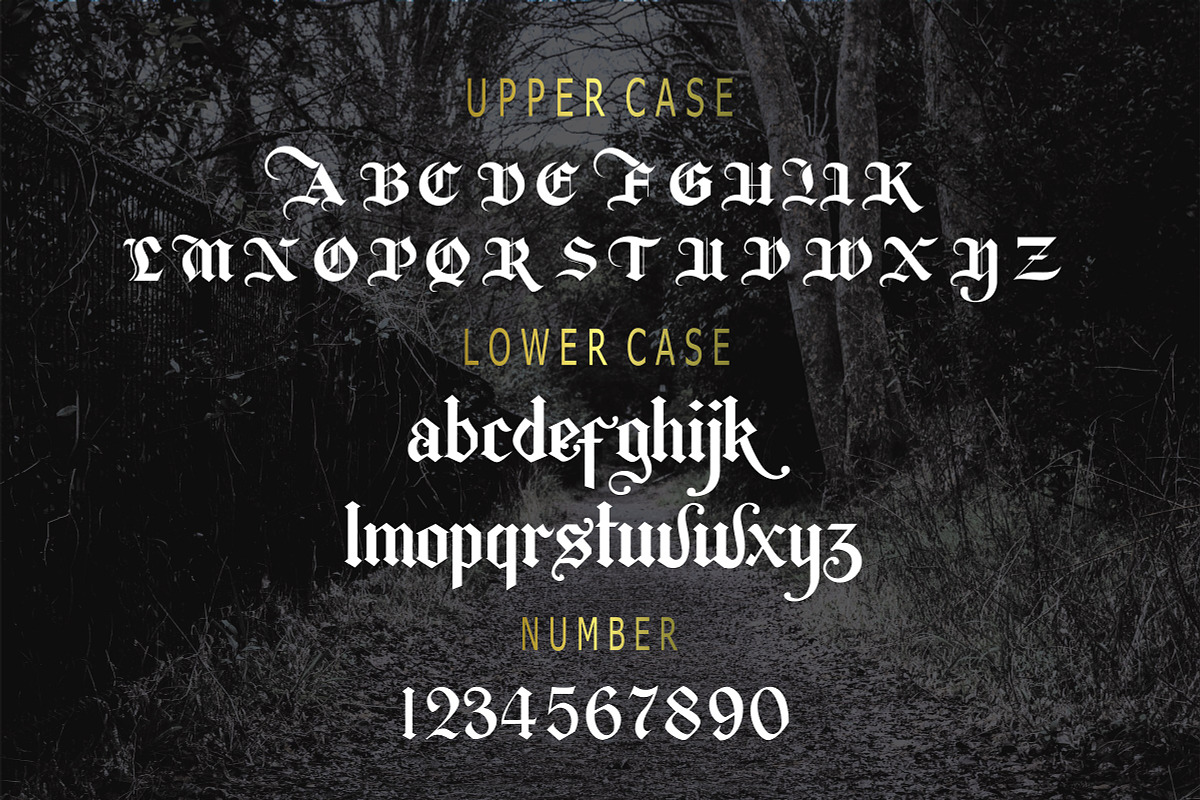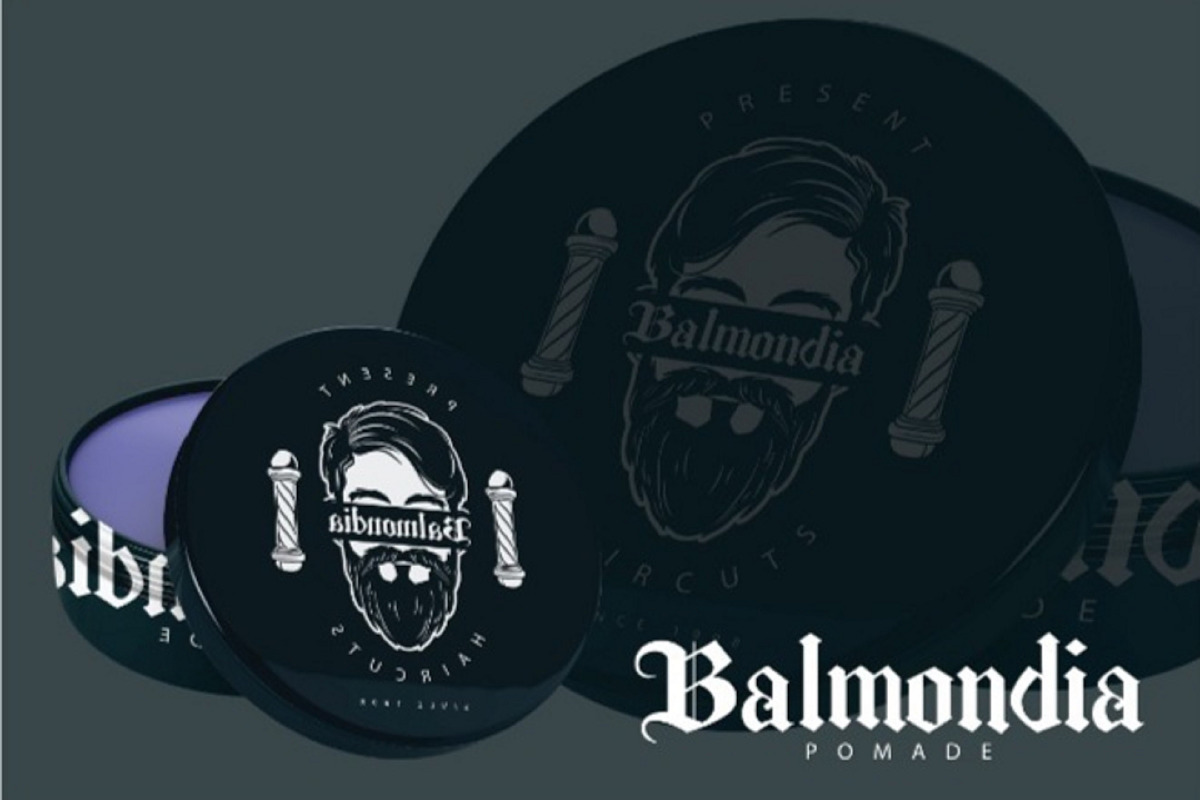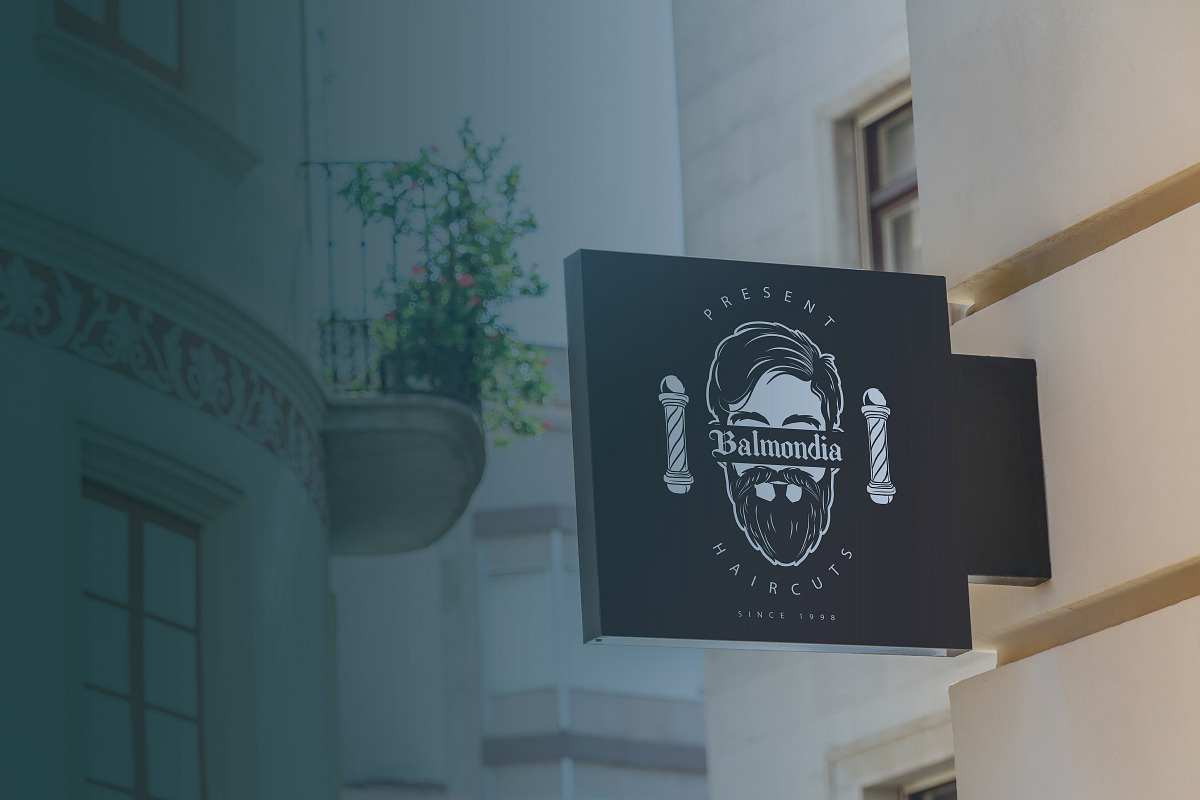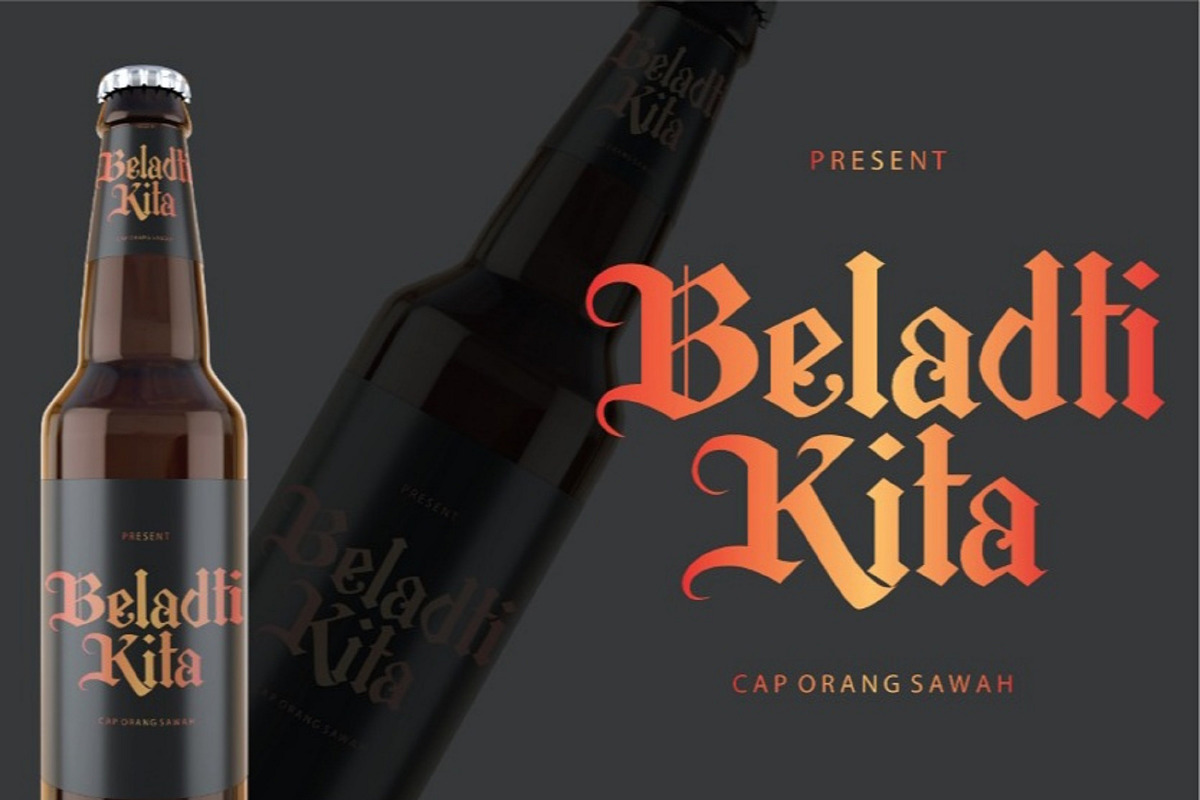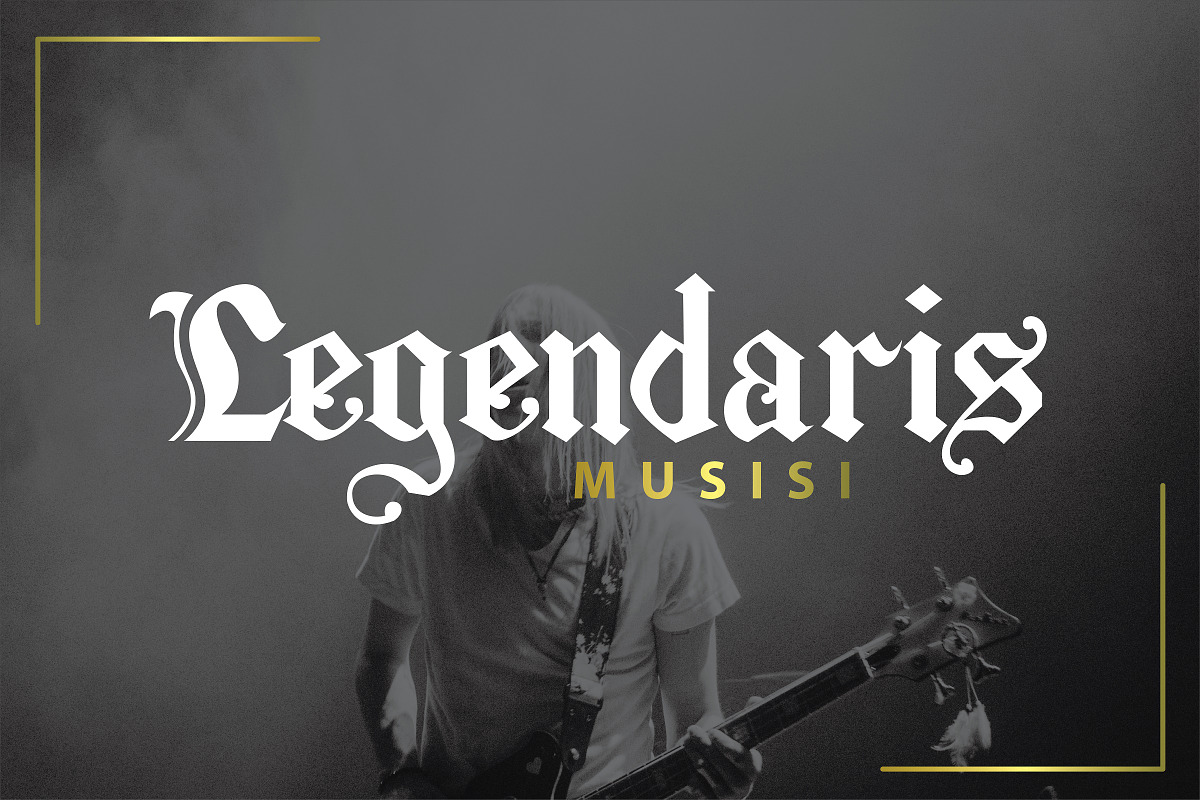
Berkahi Blackletter Font
Introducing Berkahi Blackletter Font, unique gothic blackletter for your design. perfect for tattoos clothing, labels and packaging, branding, or any Gothic-themed projects! i hope you enjoyed Include : Otf Ttf
Berkahi Blackletter Font by Authentic Studio fits naturally into Branding, posters, packaging, typography.